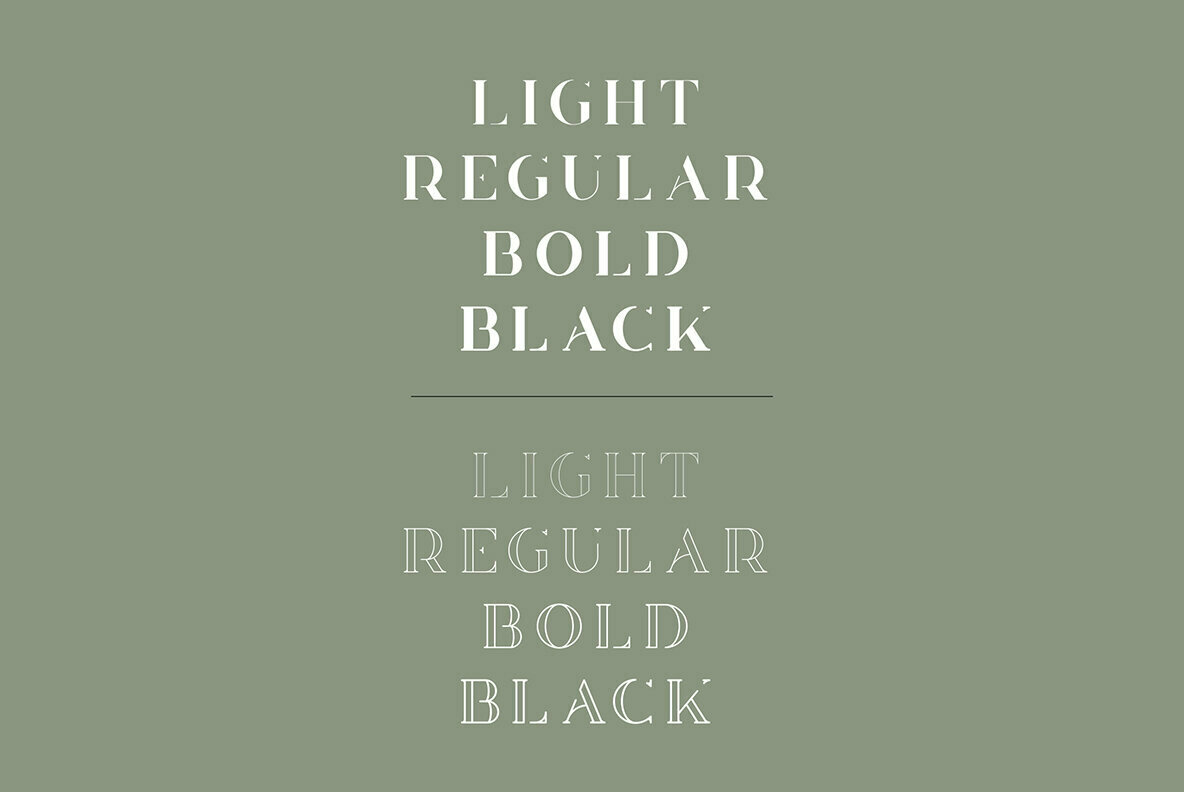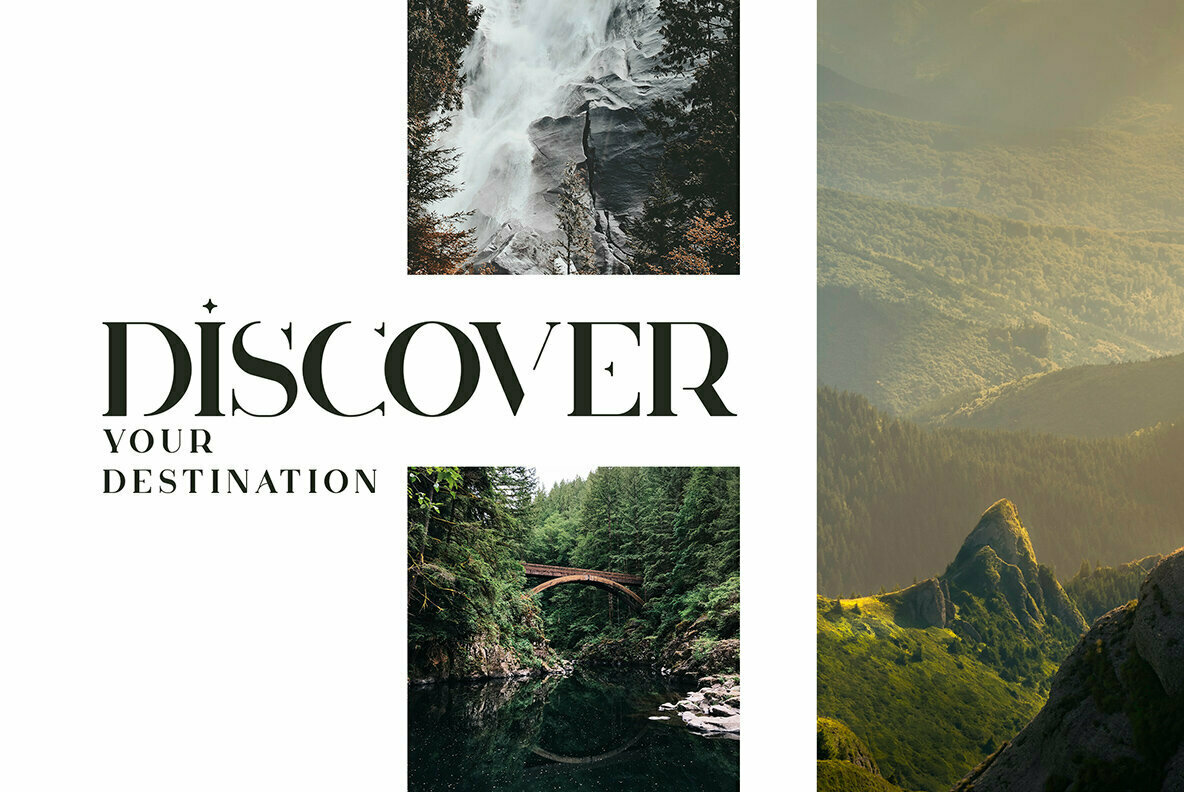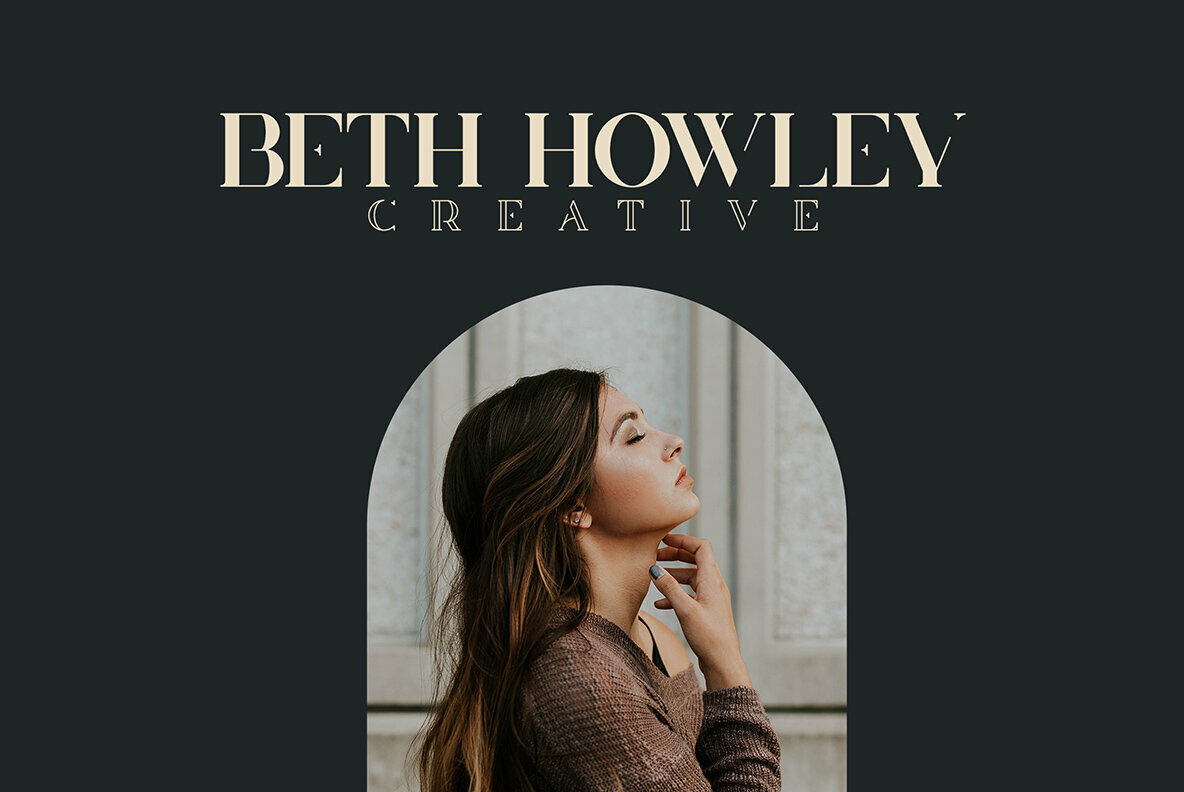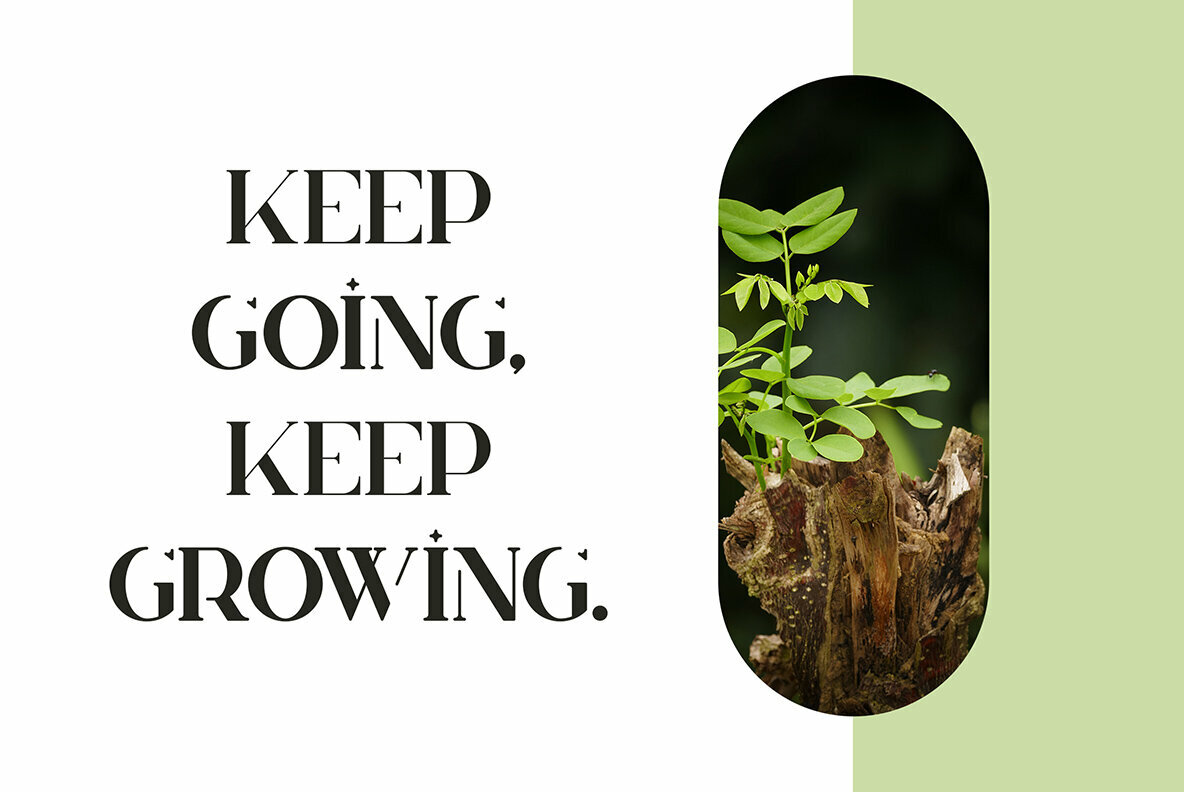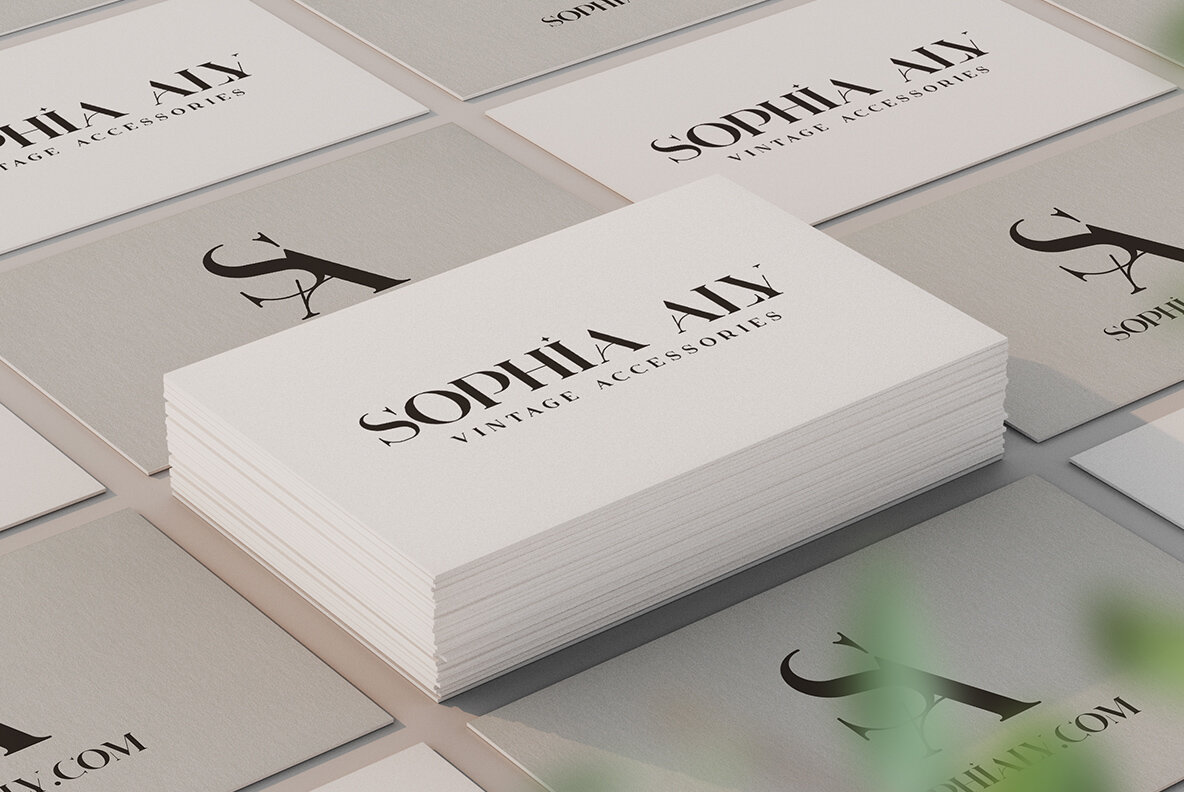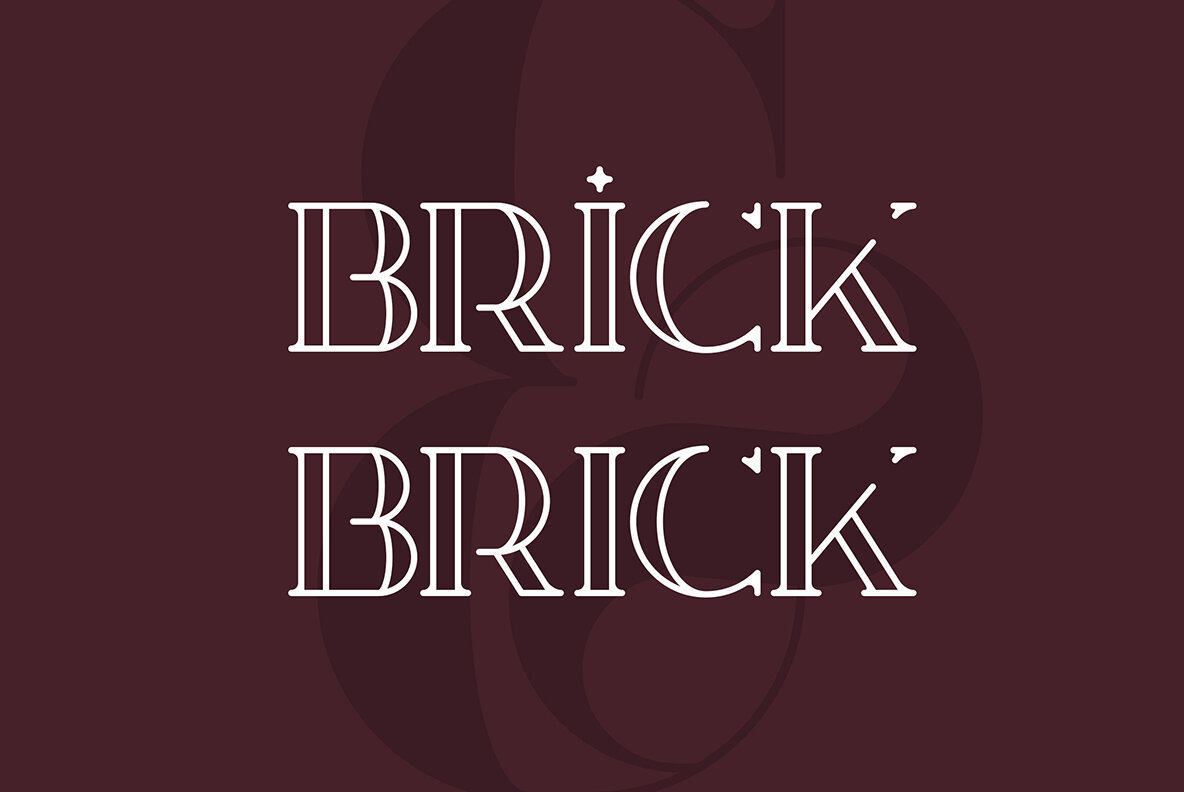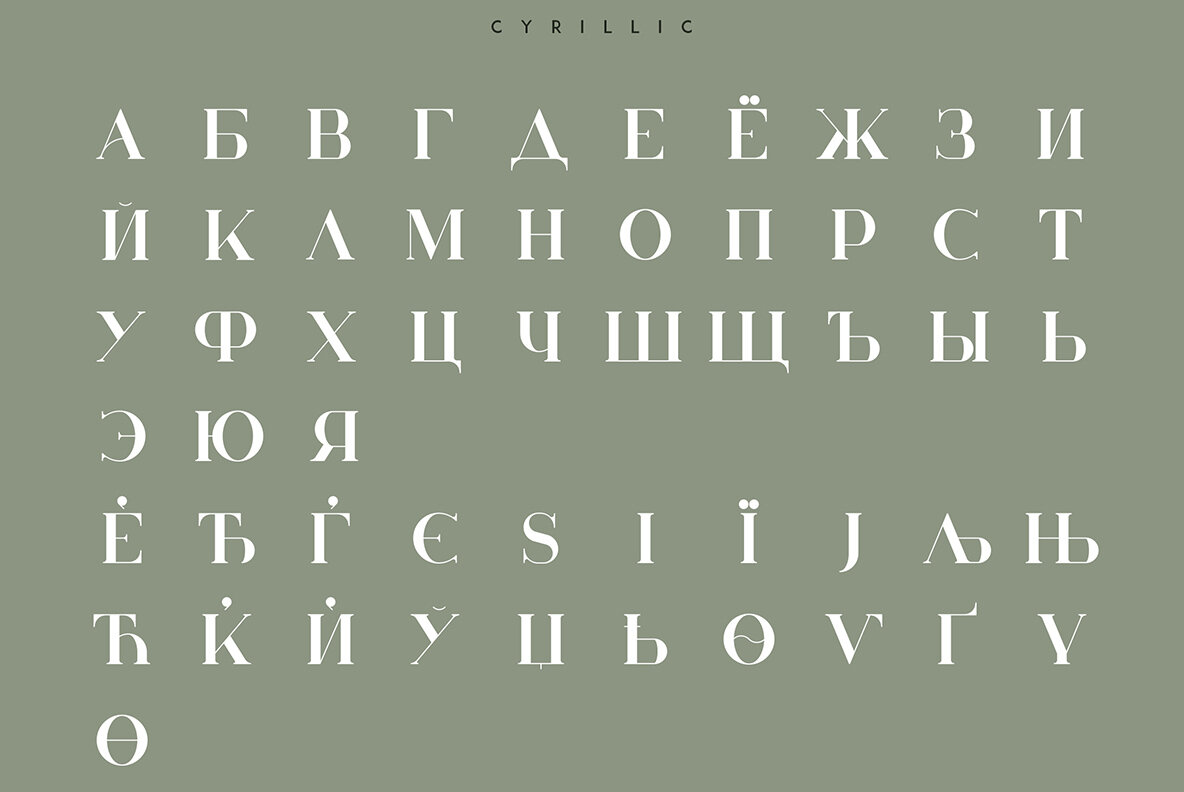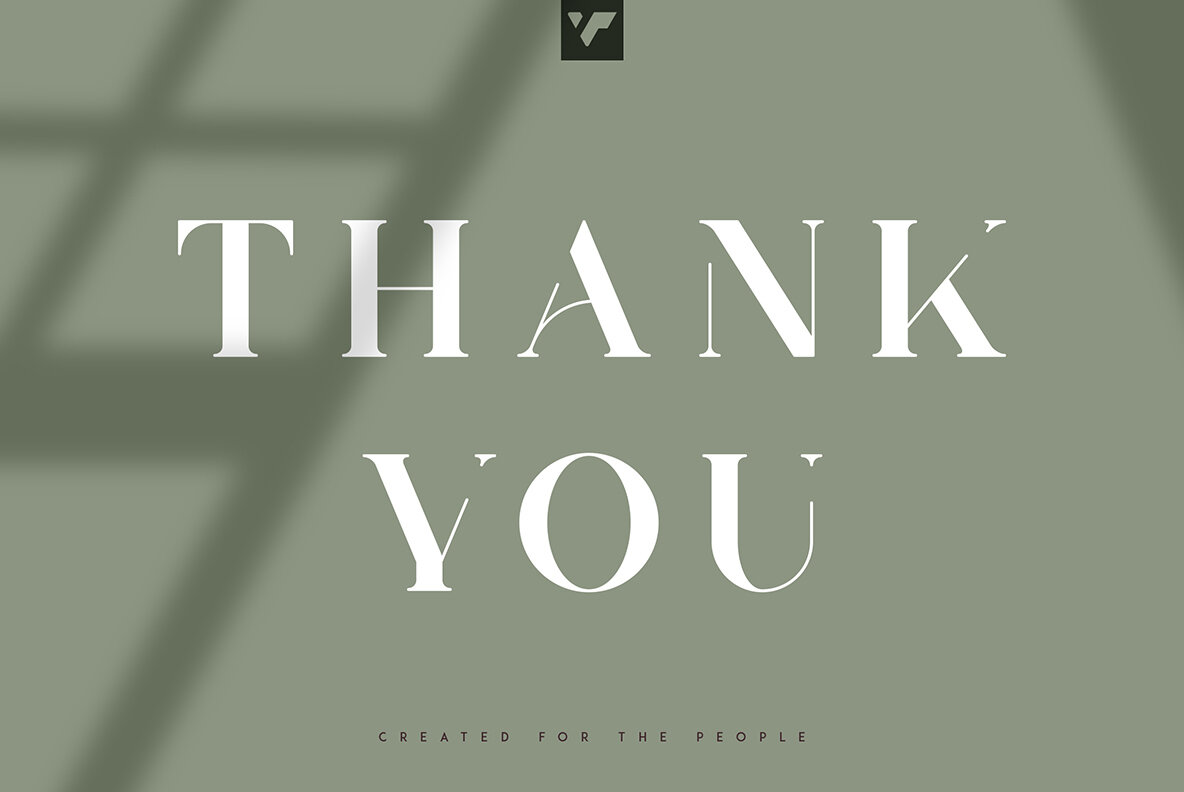
Huova Font
The Huova serif typeface is designed to meet the needs of sophisticated projects, blending timeless elegance with modern functionality. With 8 distinct font styles, this typeface provides remarkable versatility, making it ideal for both large-scale displays and intricate text layouts. It supports basic and advanced Latin, as well as Cyrillic character sets, ensuring broad applicability in diverse design contexts. Huova shines in a variety of settings, from branding and product packaging to magazine headers and home-ware designs. Its stylish presentation enhances text overlays on any background image, making it a valuable asset for design professionals. Features:Huova: Classic Serif Typeface With Versatile Styles